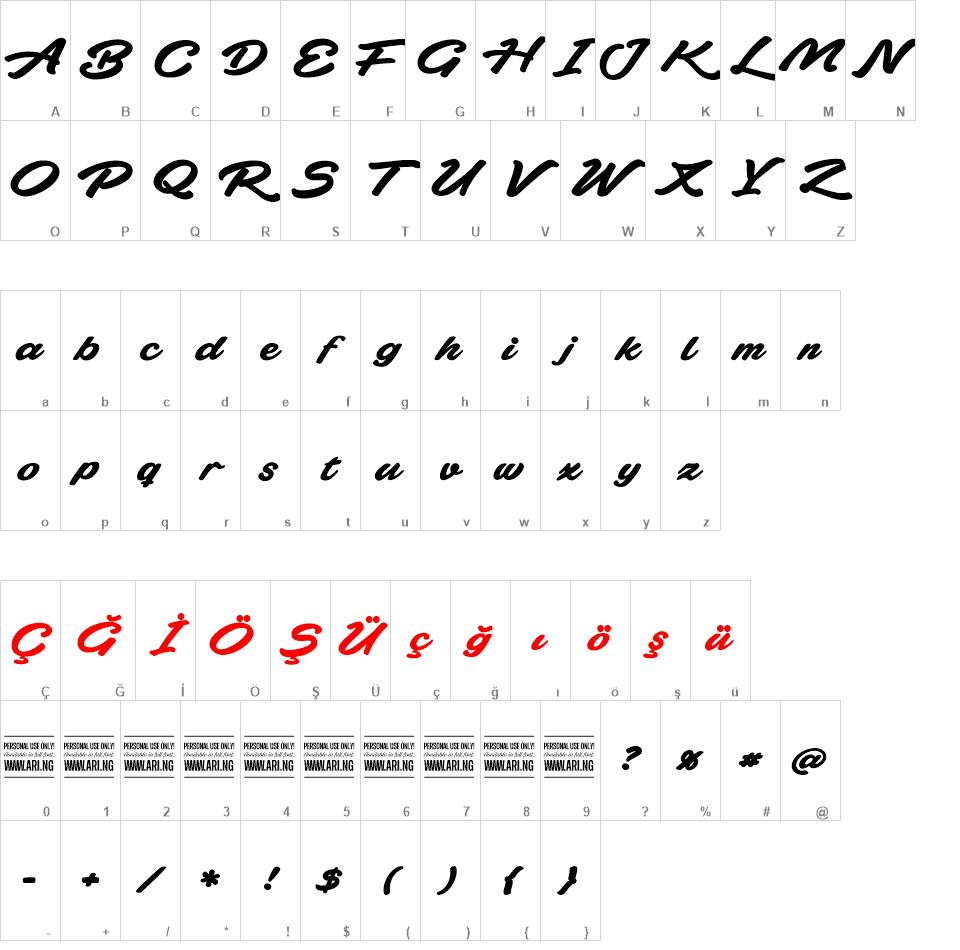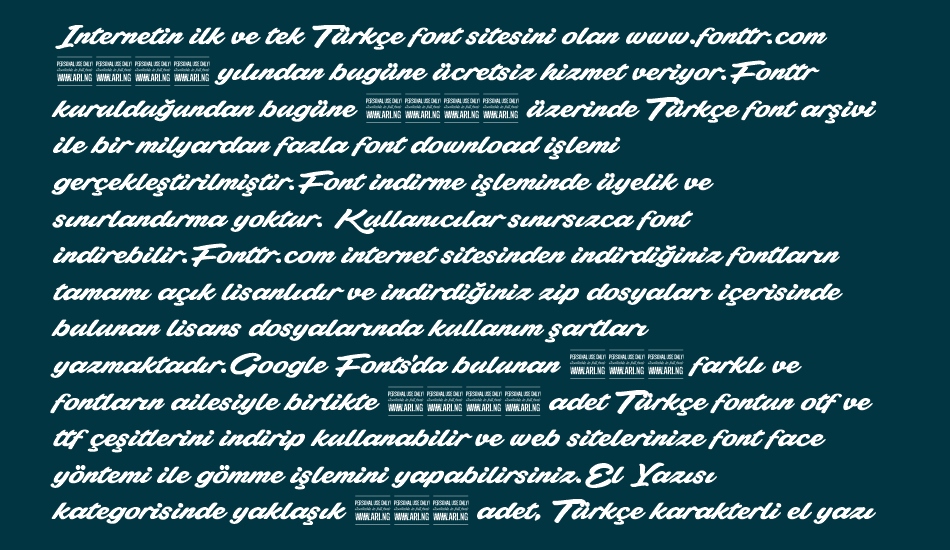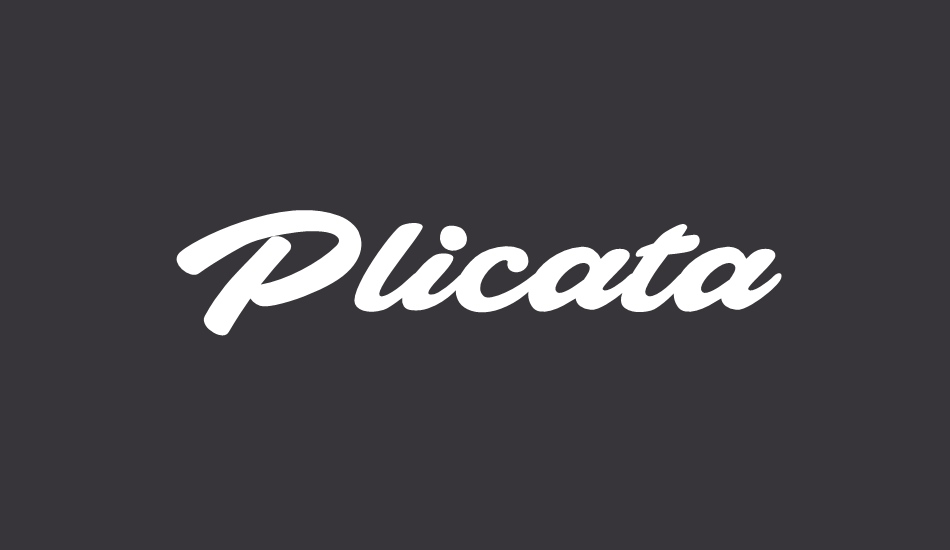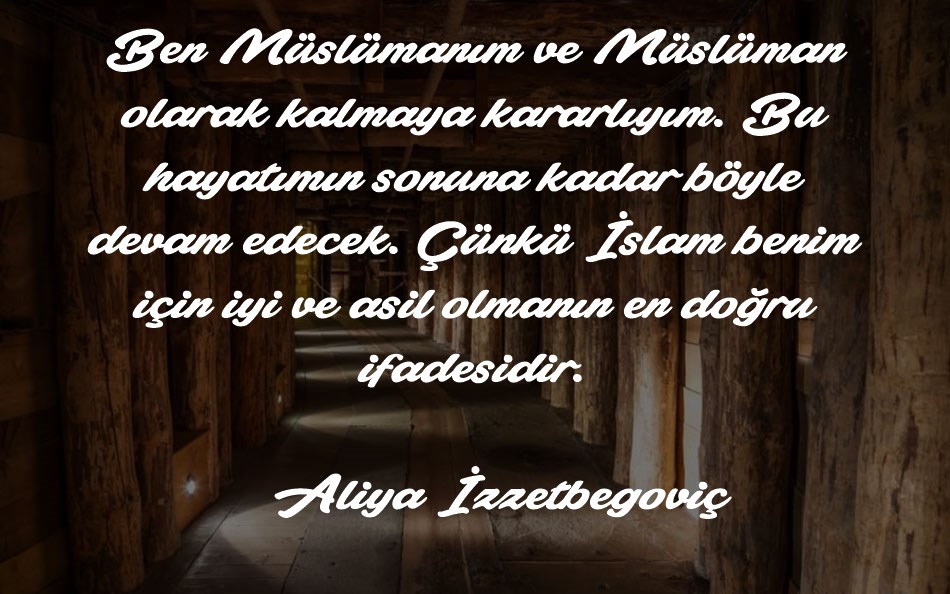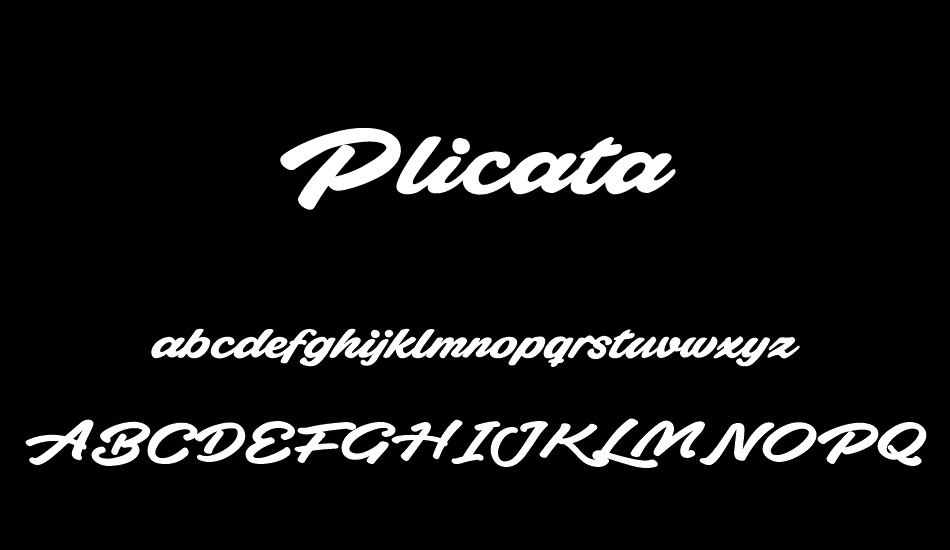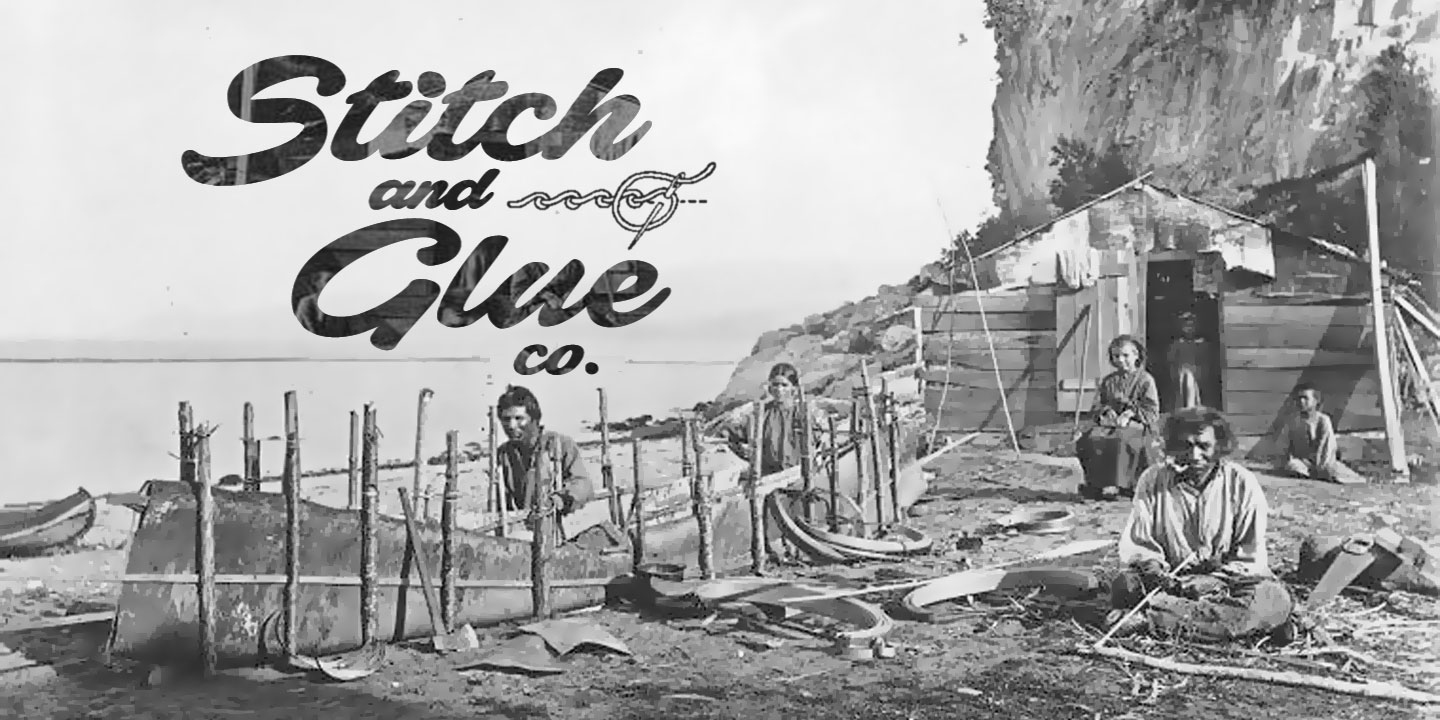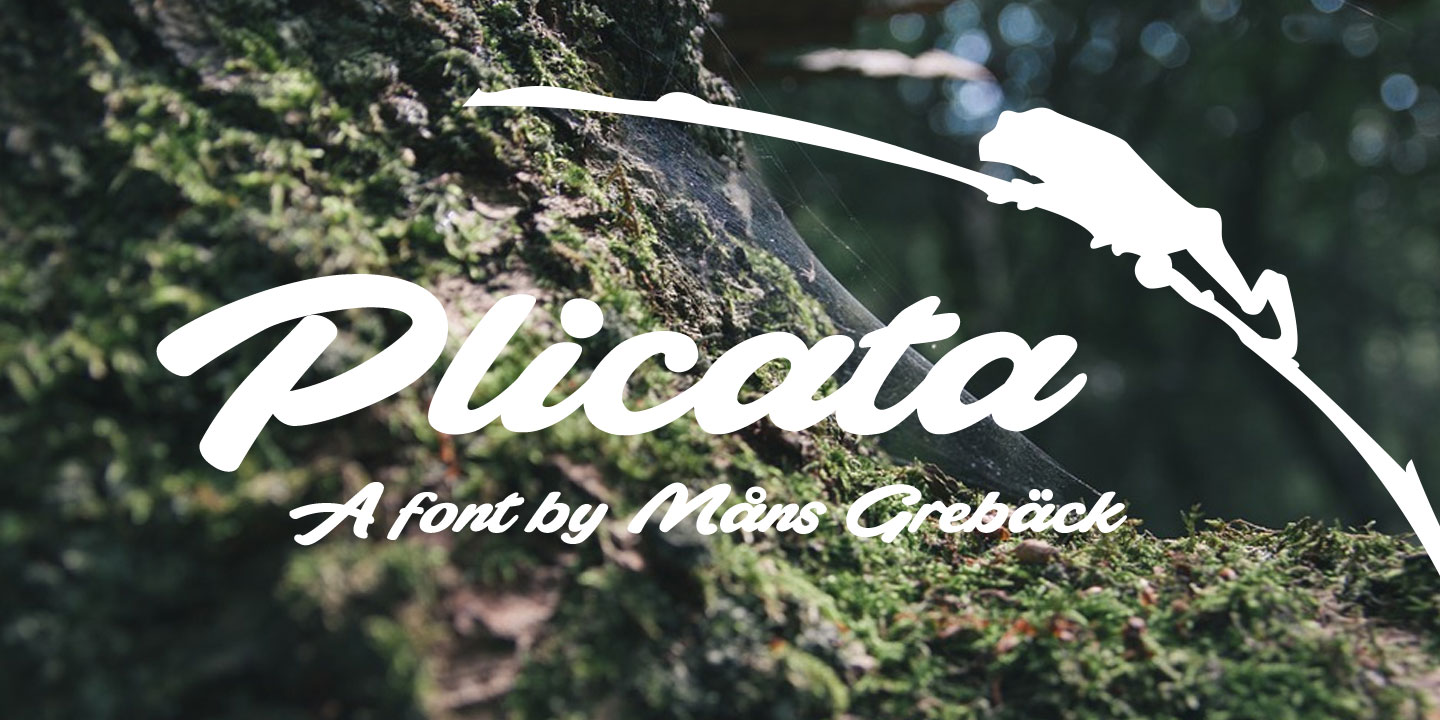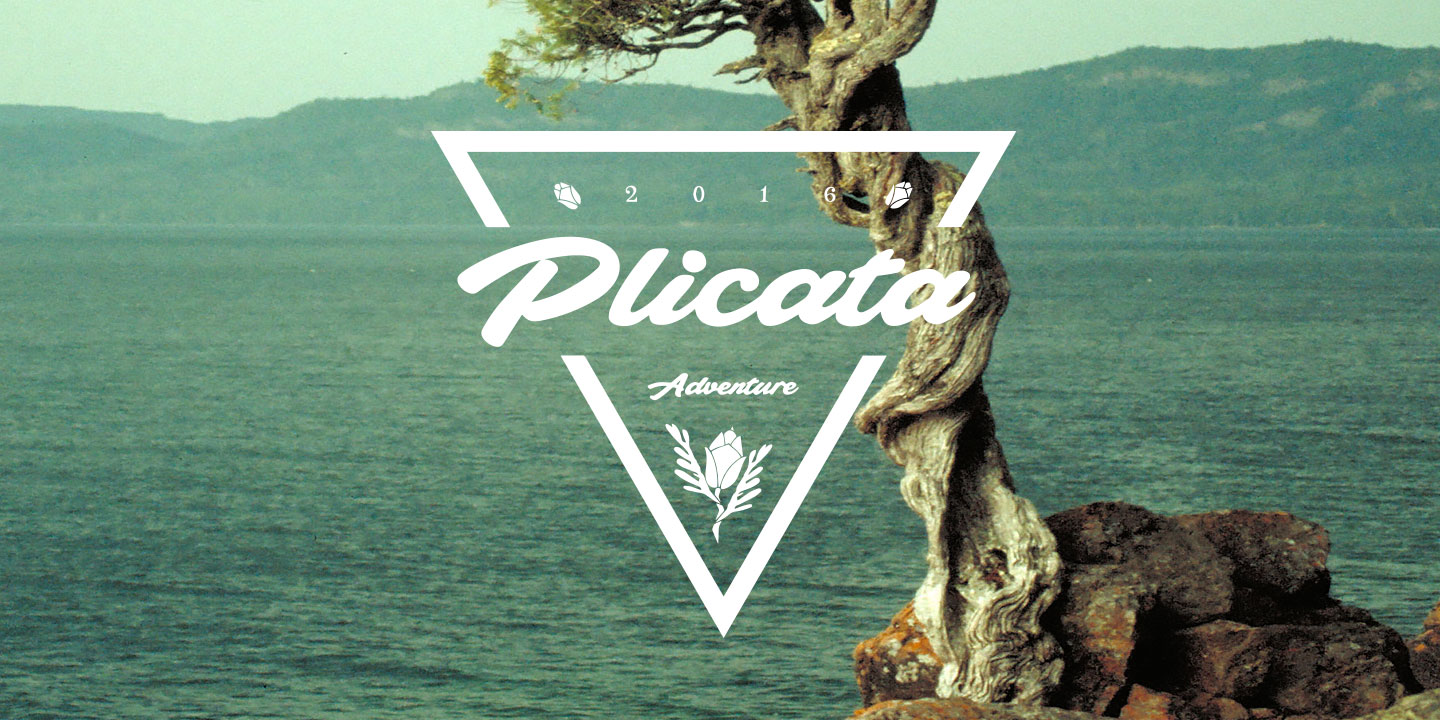
Plicata font
Plicata is a hand crafted typeface.
It's script style is legible and clear, and it brings an edge to your graphic projects.
Created with care by M?ns Greb?ck, this is the perfect store front logo font.